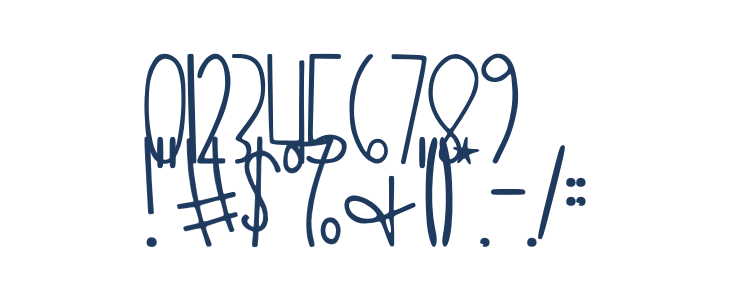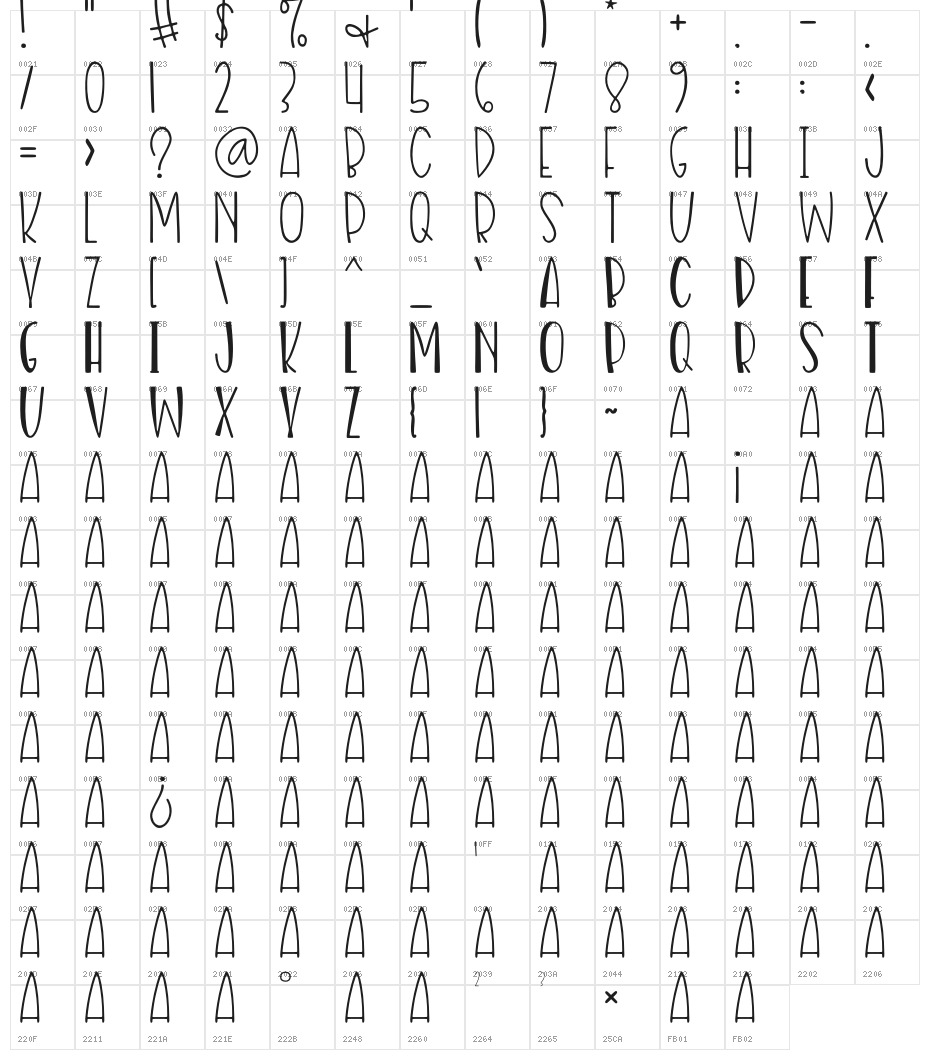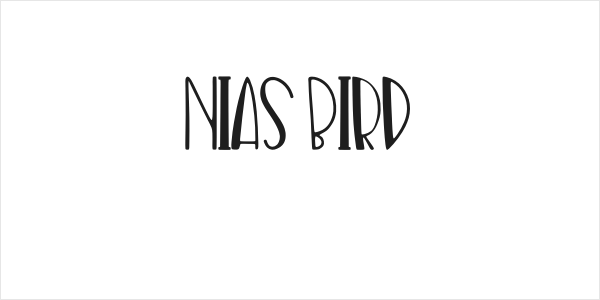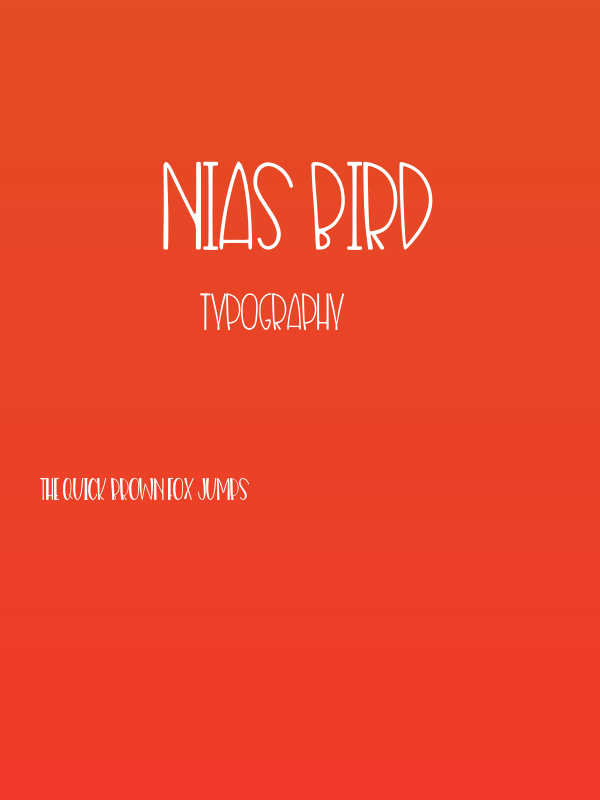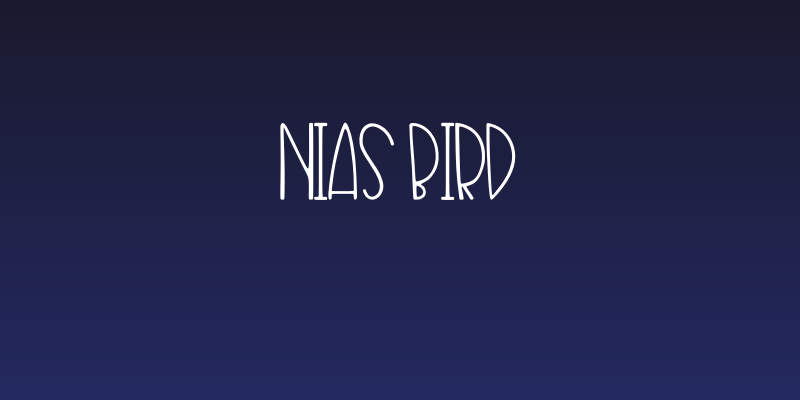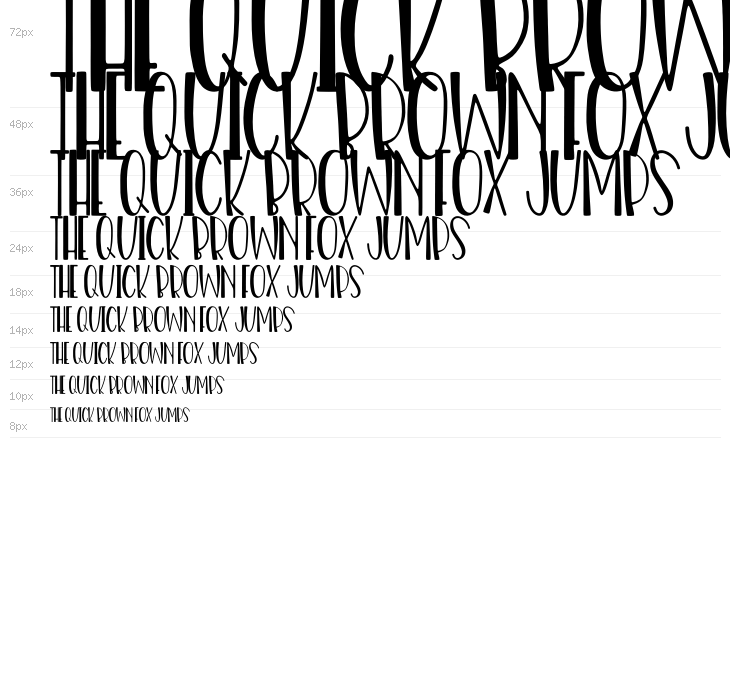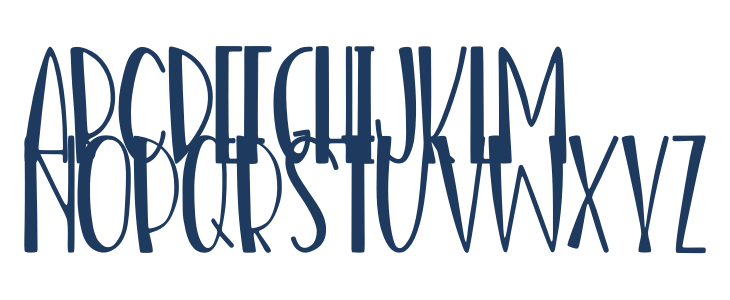
Nias Bird Font
Nias Bird Description
This font features a unique and playful design with elongated, narrow characters that give it a whimsical and artistic flair. The uppercase letters are tall and slender, while the lowercase letters maintain a consistent style with a slightly more relaxed form. The numbers and special characters follow the same elongated and narrow theme, adding to the overall cohesive look. The strokes are consistent in width, providing a uniform appearance across all characters. This font's distinct style makes it stand out, offering a creative and modern touch to any project.
| Use Case | Headlines, Logos, Artistic designs |
| Proposed Projects | Ideal for creative projects such as posters, invitations, branding, and artistic designs where a unique and modern touch is desired. |